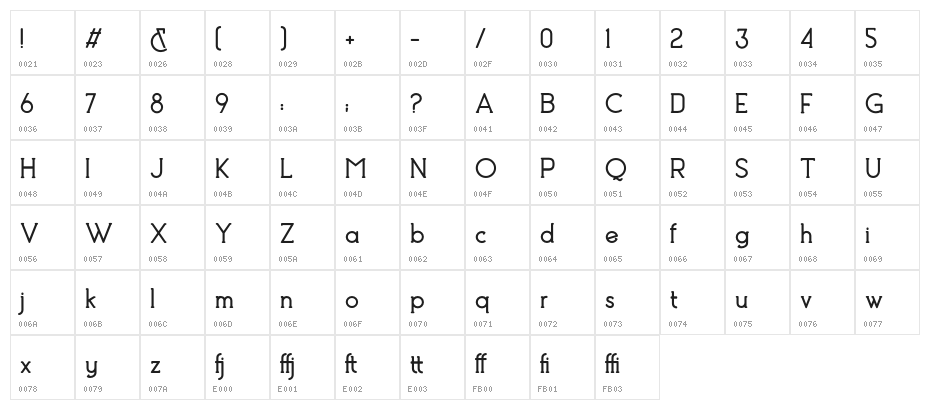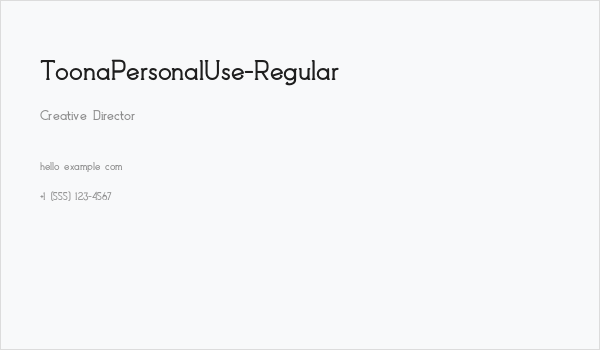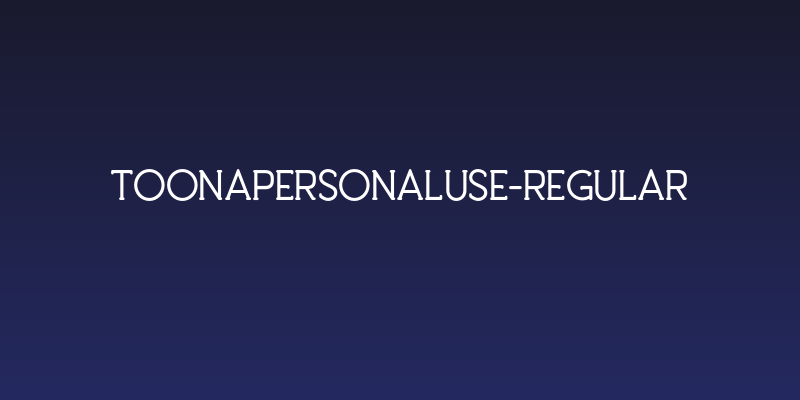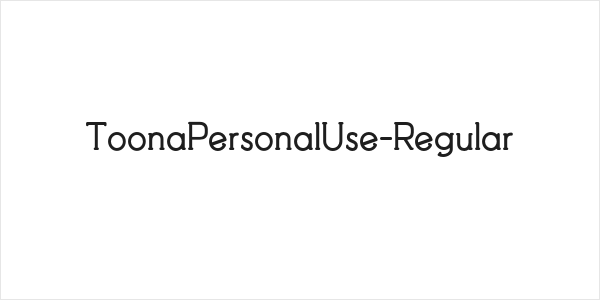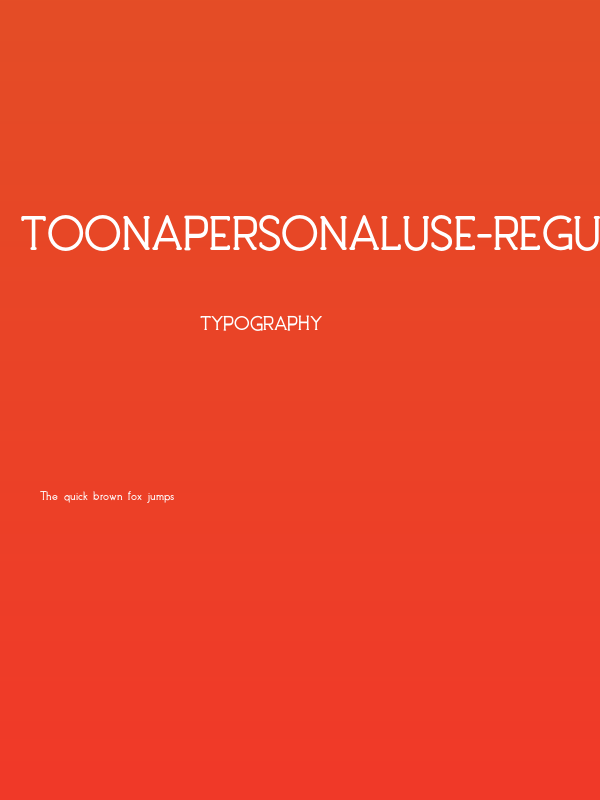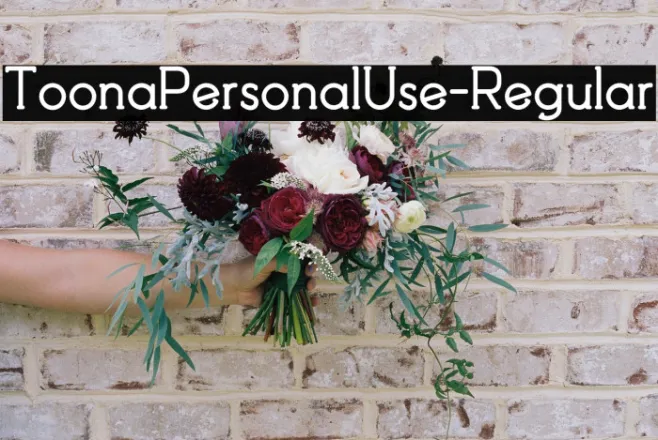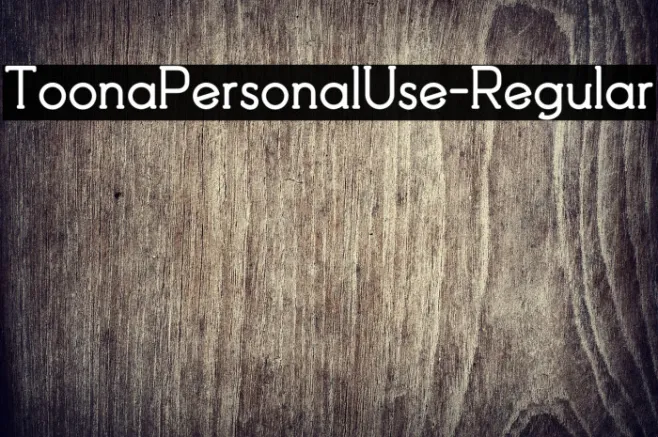
ToonaPersonalUse-Regular Font
ToonaPersonalUse-Regular Description
This font features a playful and rounded style with a modern twist. The characters are well-balanced, with a consistent stroke width that gives it a clean and approachable appearance. The uppercase letters are slightly taller than the lowercase, providing a nice contrast. The numerals are clear and easy to read, while the special characters add a touch of whimsy with their unique shapes. Overall, this font exudes a friendly and inviting vibe, making it suitable for a variety of creative projects.